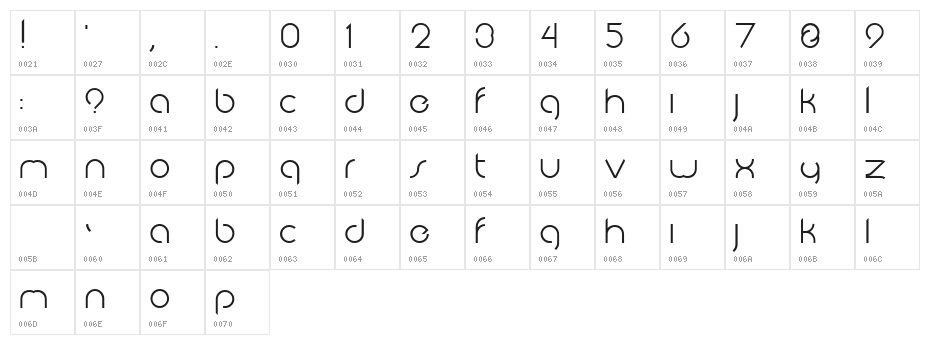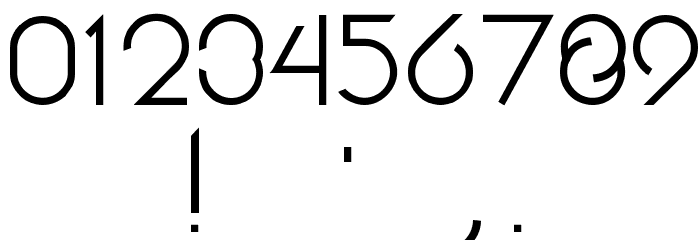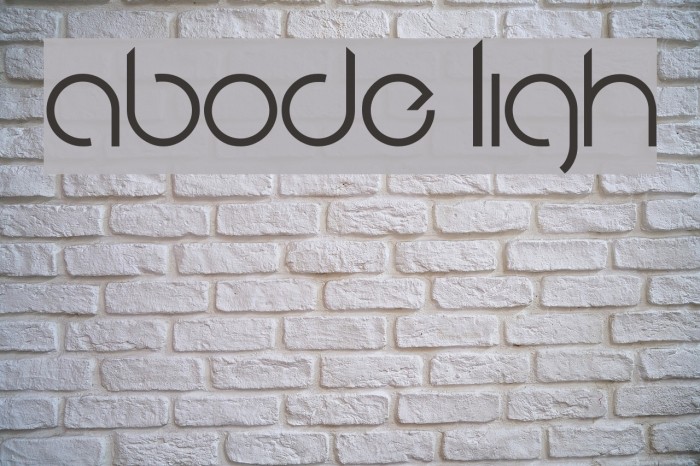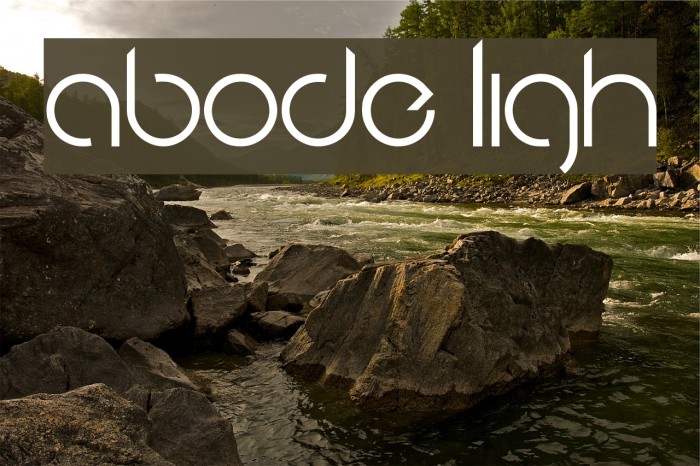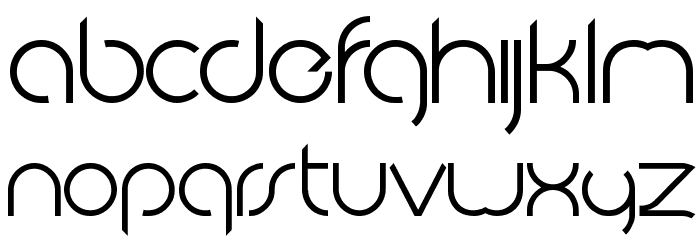
Abode Light Font
Abode Light Description
This font features a sleek, modern design with clean lines and a geometric structure. The characters are uniform in width, giving a balanced and harmonious appearance. The rounded edges and open counters contribute to its readability and contemporary feel. The numerals and special characters maintain the same stylistic approach, ensuring consistency across all elements. Its minimalist aesthetic makes it versatile for various design applications.
| Use Case | Headlines, Body text, Logos |
| Proposed Projects | Ideal for branding, digital interfaces, and modern print materials. |